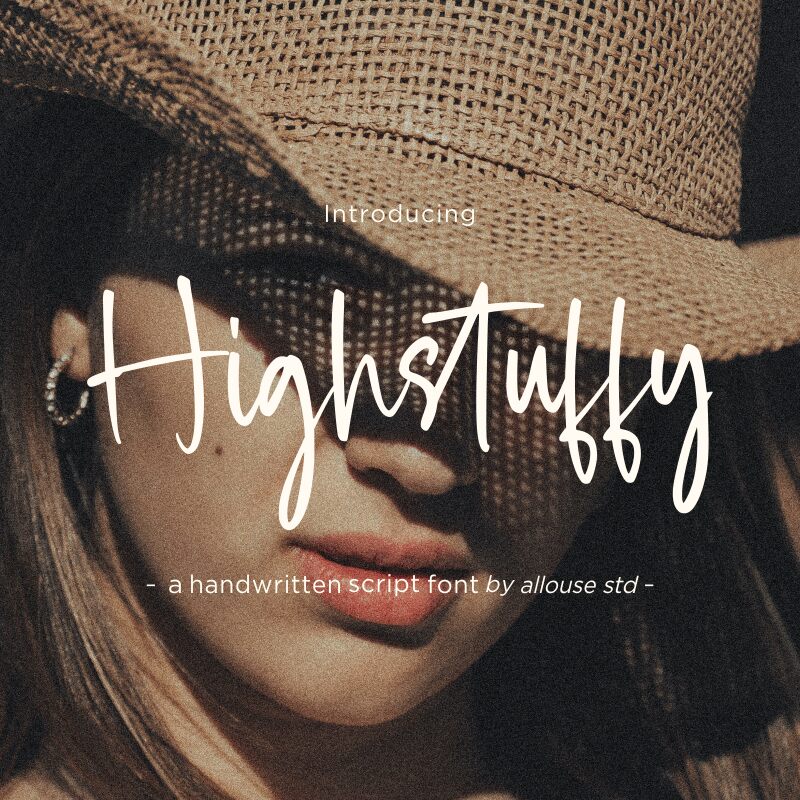
Highstuffy
Highstuffy font by Allouse Studio is a light, handwritten typeface that embodies a casual feel and modern script style. Its informal aesthetic and expressive character make it perfect for adding a personal touch to designs. The free handwritten font has laid-back lines with a stylish appearance when placed on the right background.
Add this font’s unique appeal in invitations, stationery projects, book covers, posters, social media posts (especially Instagram ones), or product packaging that requires visual standouts. Highstuffy can be further used in magazines and newspaper headlines where texts would appear more attractive than usual.